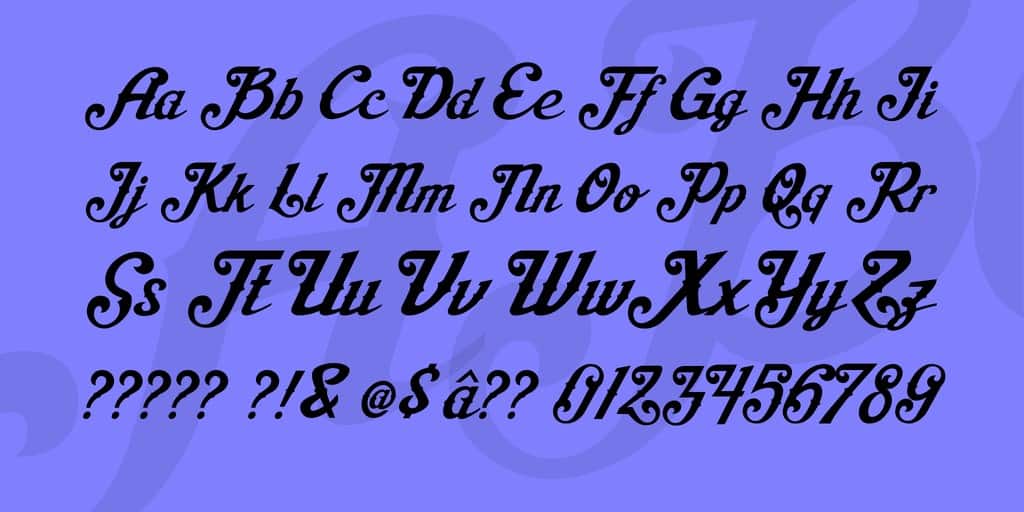
aisha script
Aisha Script is an exquisite handwritten font available in TTF, OTF, and WOFF formats. Ideal for invitations, branding, and personal projects.
Experience the Charm of Aisha Script Font
Aisha Script, created by talented designer Maya Abdul in 2022, is a beautifully crafted handwritten font that brings a warm and inviting touch to your designs. Perfect for wedding invitations, greeting cards, and branding, Aisha Script captures the essence of personal expression, making it an ideal choice for both digital and print projects.
The Inspiration Behind Aisha Script Font
Aisha Script draws inspiration from modern calligraphy, blending traditional techniques with contemporary aesthetics. Maya Abdul’s meticulous attention to detail and unique style brings each character to life, offering every designer an opportunity to infuse artistry into their work. This font not only stands out in aesthetic appeal but also tells a story of creativity and craftsmanship.
Versatile Uses for Aisha Script Font
Perfect for a myriad of applications, Aisha Script excels in creating invitations, personal branding, business cards, and more. Its elegant flow and smooth readability make it suitable for both formal and informal projects, ensuring your designs convey the right emotion, be it joy, sophistication, or warmth.